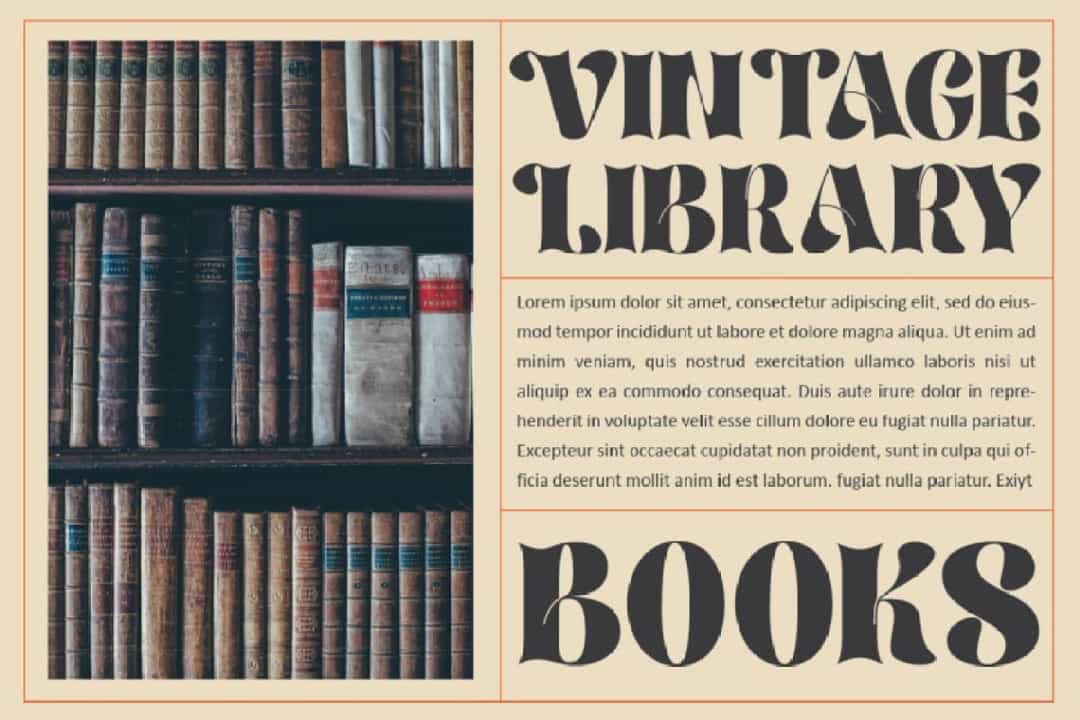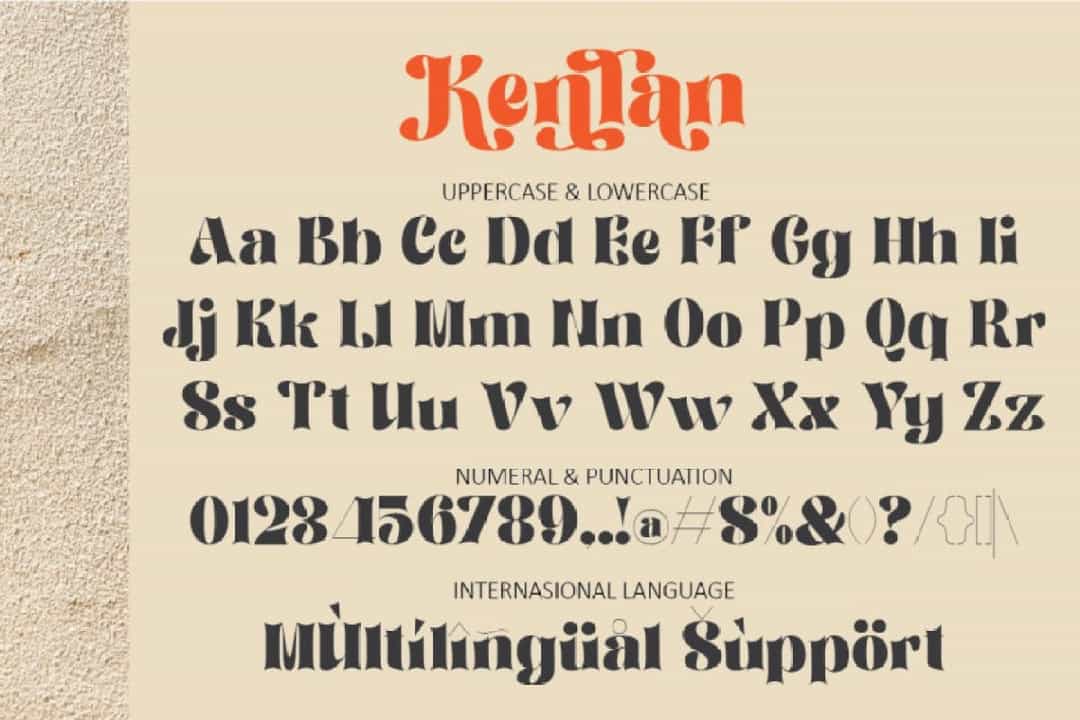
Discover Kenlan Font, part of the Serif Display Retro collection—a versatile and unique font perfect for adding a personal touch to your projects. Download it for free and enjoy crafting designs with style, from invitations to social media posts. This font is available exclusively for personal use, giving you the freedom to create without limits. Unlock your creativity with Kenlan Font today!
Kenlan Modern Bold Serif Font boasts elegant Ligatures and Alternates, Special Glyphs and Ornament support and multilingual language support – it’s truly remarkable flexible font great both at small sizes as well as larger ones!